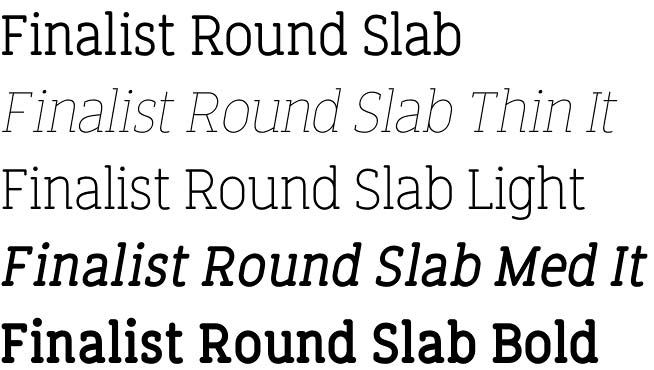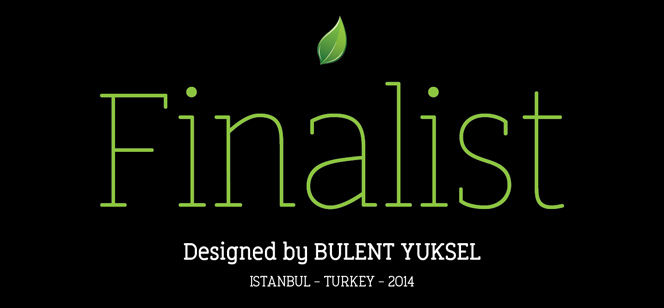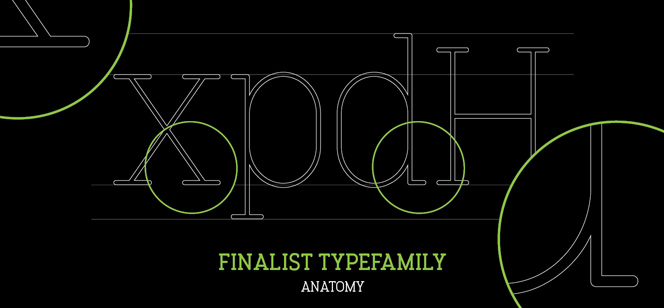
Finalist Round Slab font
Finalist Round Slab font is a family of 5 separate weights each in two styles – upright & slanted. Finalist Round Slab has clear geometrical letterforms with slab serifs and nice delicate rounding around corners making the font looking less sharp, soft & friendly without losing its generic strong presence of a serif condensed Grotesk. Finalist Round Slab is excellent for editorial design – you could pick from 5 weights which will give you enough combinations to balance your body text, subheads and headlines in a perfect system where good contrast and enhanced readability rule. Additionally you have ligatures, multilingual support and 5 slanted weights to make your typography more sophisticated and diverse.
Finalist Round Slab font is created by Bülent Yüksel based in Istanbul, Turkey. See also him Formetic font.